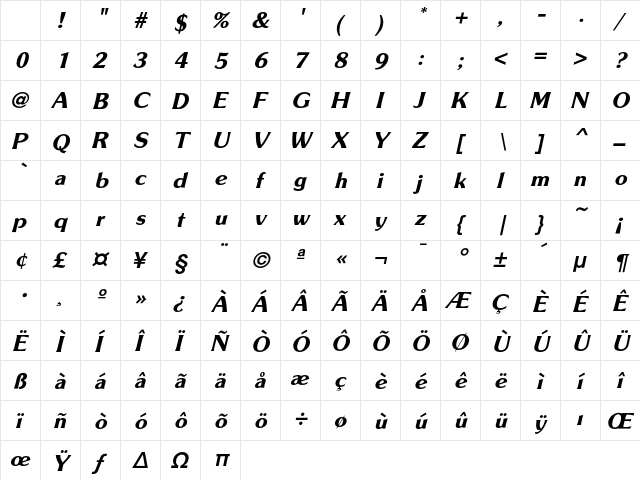
Complete SouvenirGothic DemiBoldItalic glyph index. Displaying only characters natively supported by SouvenirGothic DemiBoldItalic font.
SouvenirGothic takes a clean, functional approach - its unadorned letterforms prioritise legibility and work reliably across screen and print environments. The slanted form adds forward momentum and visual energy. Its bold stroke weight gives it real presence on the page.
Font Pairing: Works well alongside a characterful serif or display font that can carry the expressive load while SouvenirGothic handles the functional copy.
Pro Tip: Use SouvenirGothic for UI labels, navigation, and short-form body copy where clean legibility is the priority.